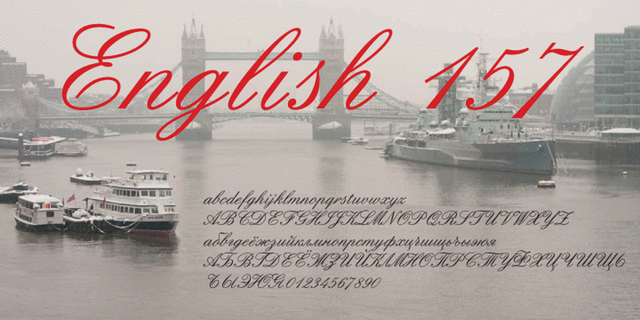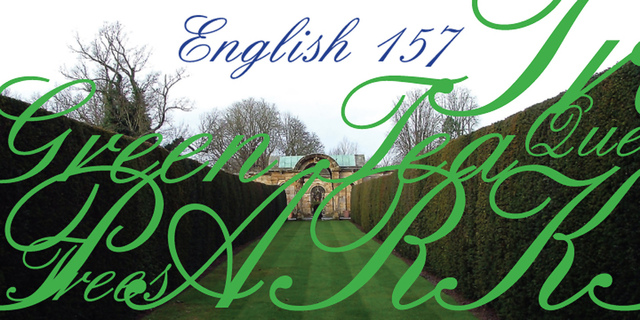
About English 157The Bitstream version of Englische Schreibschrift by H. Berthold, 1970-72. A copperplate incoherent script of the English nineteenth-century fashion, so-called Spencerian. Based on pressure pointed quill calligraphy. Unlike other copperplate scripts, the letters in this face do not link up. For use in advertising and display typography in relatively small sizes. Cyrillic version was developed at ParaType in 2000 by Vladimir Yefimov.
Associations for font family English 157Typeface personality and character:
classic, traditional, festive, solemn, pleasant, polite, lyrical, diligent, masterful, beautiful, orderly, musical, voiced, thin, elegant, aristocratic, noble, mannered, feminine, ballroom, salon art, comme il faut, decent, epistolary, silver, golden, brilliant, luxurious, secular, artistic, rhythmic, chic, refined, romantic, graceful, wedding, New Year, rich, historical, spring, creative, sexy, autumn, gentlemanly, presents, tactful
ballet, opera, art, exhibition, restaurant, luxury, etching, wedding, salon, poetry, music, symphony, ball, solfa, notes, tattoo, gifts, flowers, cake, celebration, candies, decoration, dessert, confectionery, sweets, holiday, barbershop, New Year, heraldry, cafe, cards, bakery, love, tea, wine, Spring, comme il faut, romance, dress, clothes, Christmas, kitchen, beauty, fall, painting, castle, bank note, concert, ASMR, landscape Typeface associated with age: